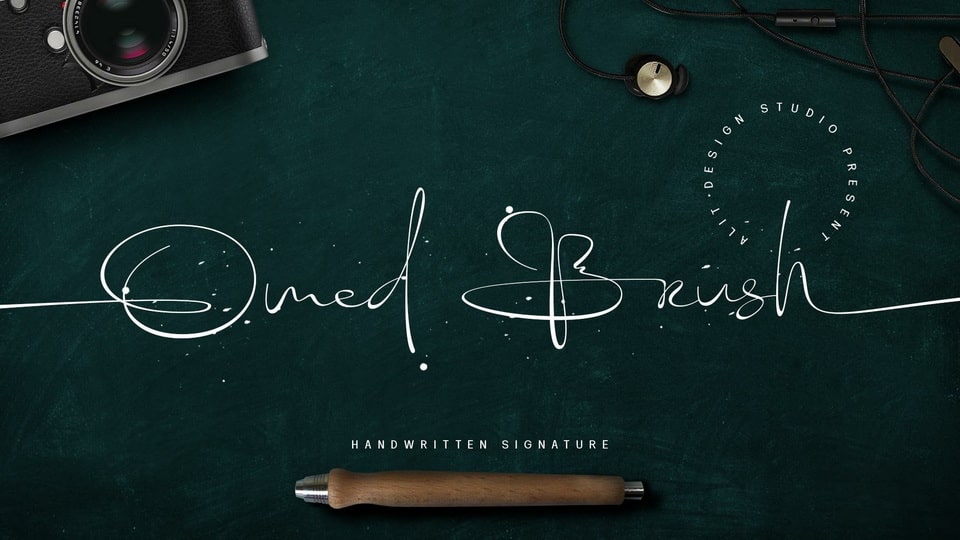
Download Omed Brush font, a handwritten script inspired by spontaneous and dynamic signature strokes with an ink texture. Omed Brush font looks natural, unique and charming which makes designs look more prominent and cool.